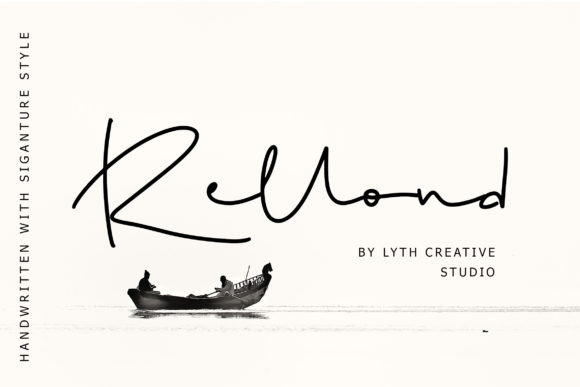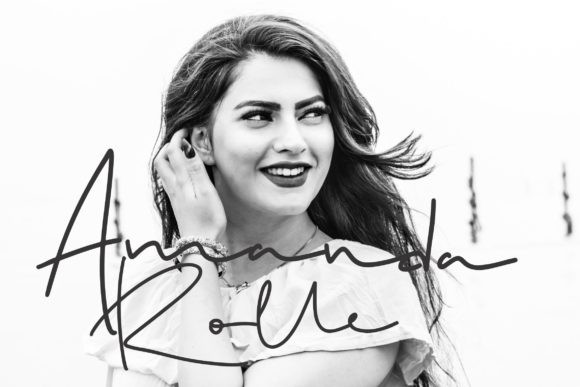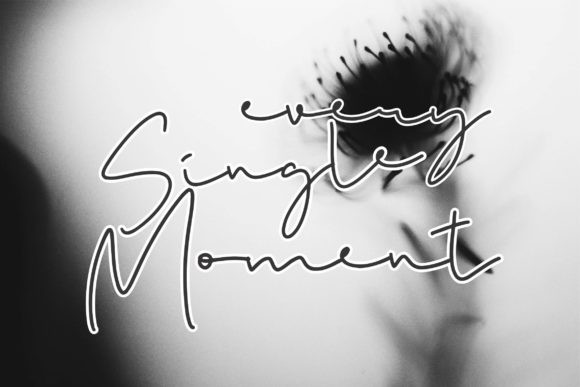
Rellond Font
Rellond is a thin and minimal handwritten font. Clean and a little bit quirky, this font is the perfect fit for all of your logos, branding, social media, and crafty DIY projects.